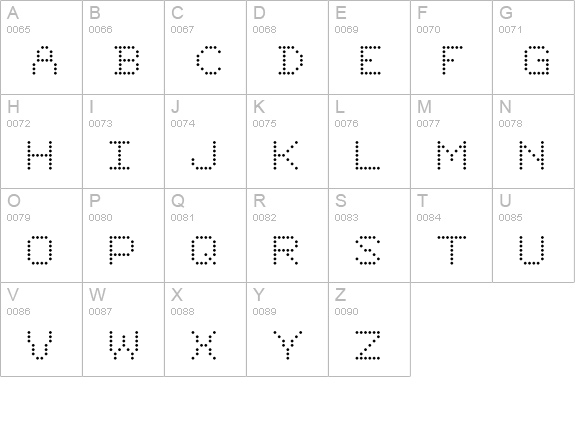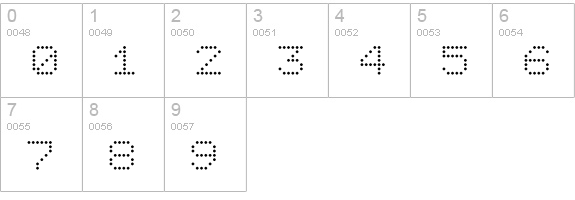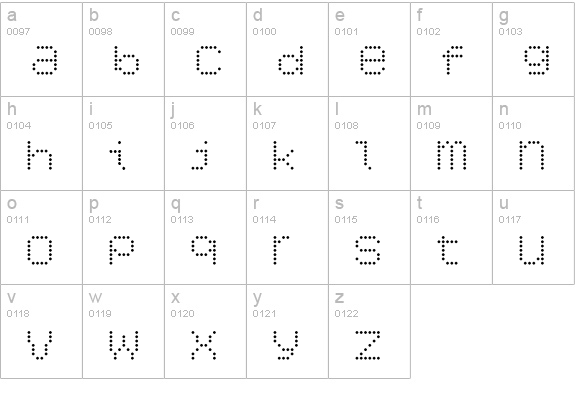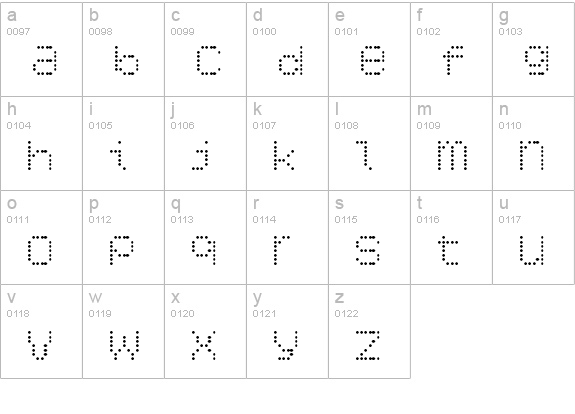
Introducing the captivating 6x7oct Alternate font, a unique and stylish typeface that is sure to make your designs stand out. This font features a modern and edgy look with alternate characters that add a touch of creativity and individuality to your projects. The 6x7oct Alternate font is perfect for a wide range of design applications, from branding and advertising to social media graphics and more. And the best part? This amazing font is available for free download at FontsMarket.com! Don't miss out on the opportunity to enhance your designs with this versatile and eye-catching typeface. Download the 6x7oct Alternate font today and unleash your creativity!